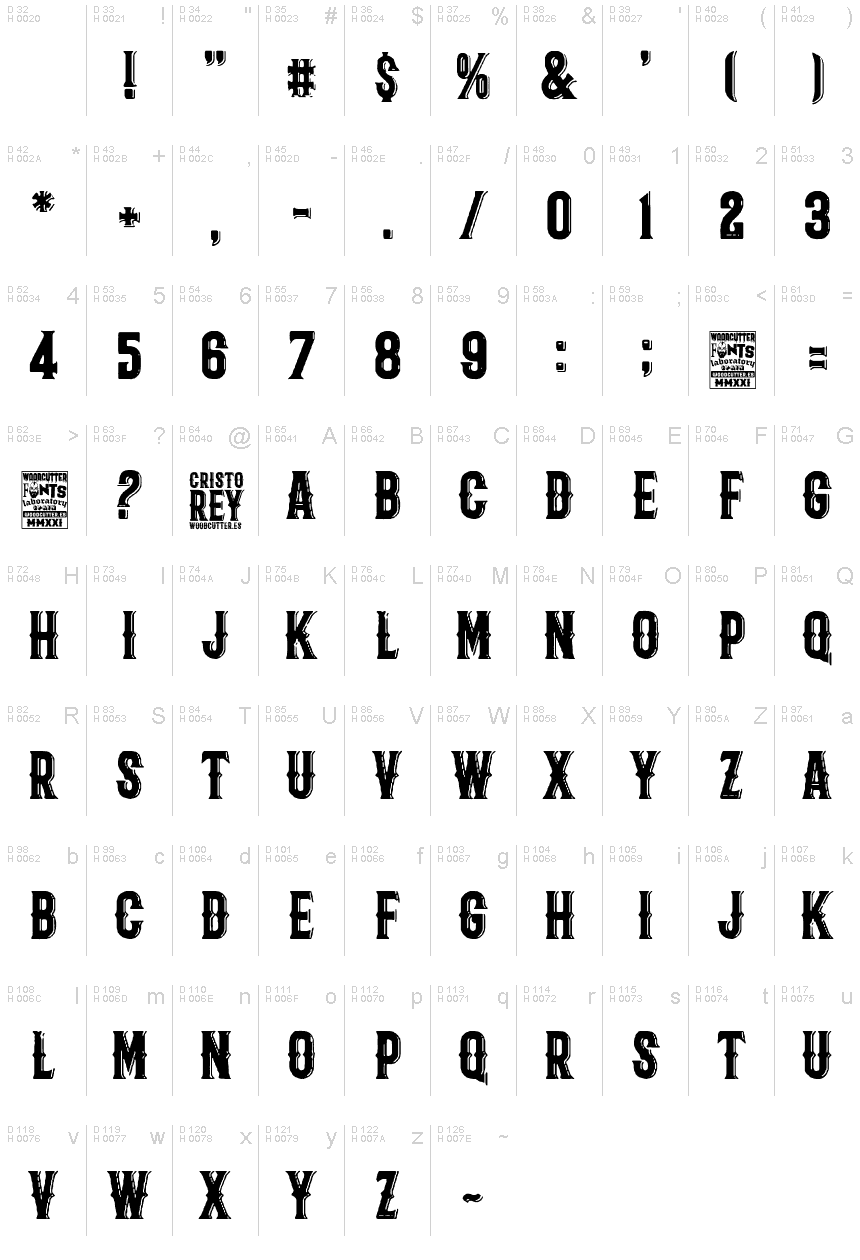
Cristo Rey
Cristo Rey is a stunning display font designed by Woodcutter, perfect for adding a touch of retro charm to any project. With its extra-condensed width, this typeface is ideal for creating bold headlines and eye-catching titles that demand attention. Whether you're designing posters, book covers, or logos, Cristo Rey delivers a powerful visual impact that's sure to leave a lasting impression. Its unique style and vintage flair make it an excellent choice for projects such as retro-themed events, classic car shows, or anything else that requires a touch of retro-chic. Elevate your designs with the bold and beautiful Cristo Rey font today!